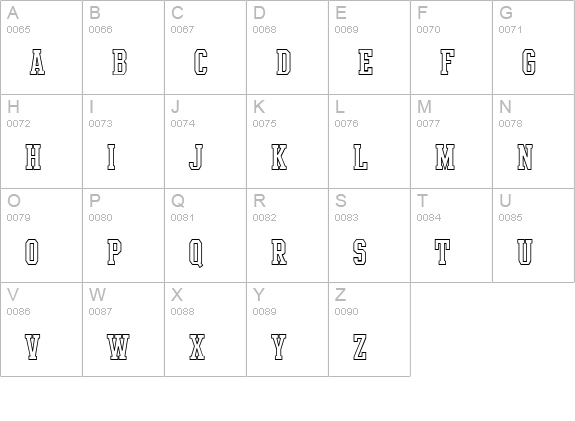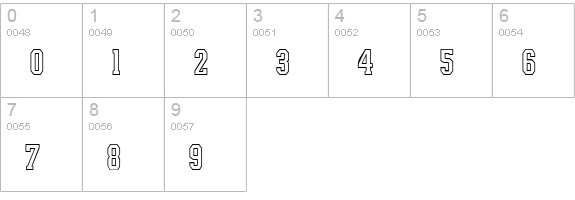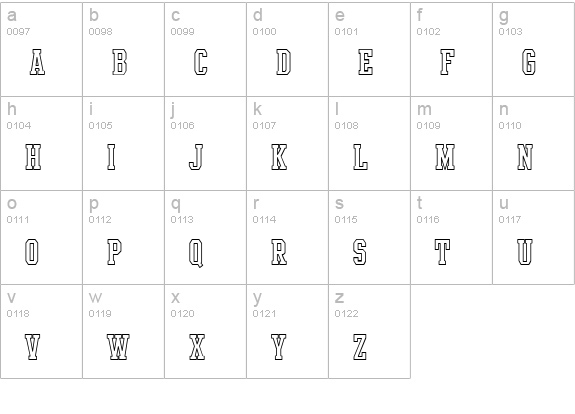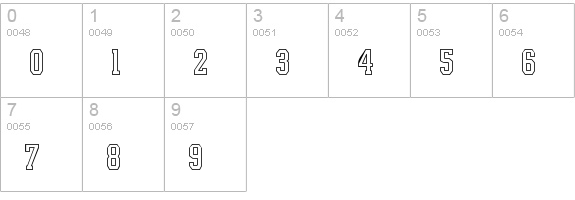
Introducing Intramural Outline JL font, a captivating typeface that effortlessly combines boldness and sophistication. This unique font is a perfect choice for projects that require a touch of modernity and an eye-catching appeal. Intramural Outline JL font features an intricate outline design that adds a sense of depth and dimension to any text it adorns. The clean lines and sharp edges make it highly legible, ensuring that your message is conveyed with clarity and impact. One of the standout features of Intramural Outline JL font is that it is freely available to download at FontsMarket.com. This means that you can easily access this stunning font without any hassle or cost. Whether you're a professional designer, a student working on a project, or someone looking to add an artistic touch to their personal endeavors, this font is a valuable addition to your creative arsenal. With its versatility and modern aesthetic, Intramural Outline JL font is suitable for a wide range of projects. From logo design and branding to website headers and social media posts, this font will elevate your visuals to new heights. Its bold yet refined appearance makes it ideal for headlines and titles, while its legibility ensures readability even at smaller sizes. Intramural Outline JL font is designed to make your text stand out, creating a lasting impression on your audience. Its contemporary style and attention to detail make it a go-to choice for those seeking a font that exudes professionalism and sophistication. So, why wait? Embrace the power of Intramural Outline JL font and elevate your designs to a whole new level. Download it for free at FontsMarket.com and unlock the endless possibilities of this remarkable typeface.